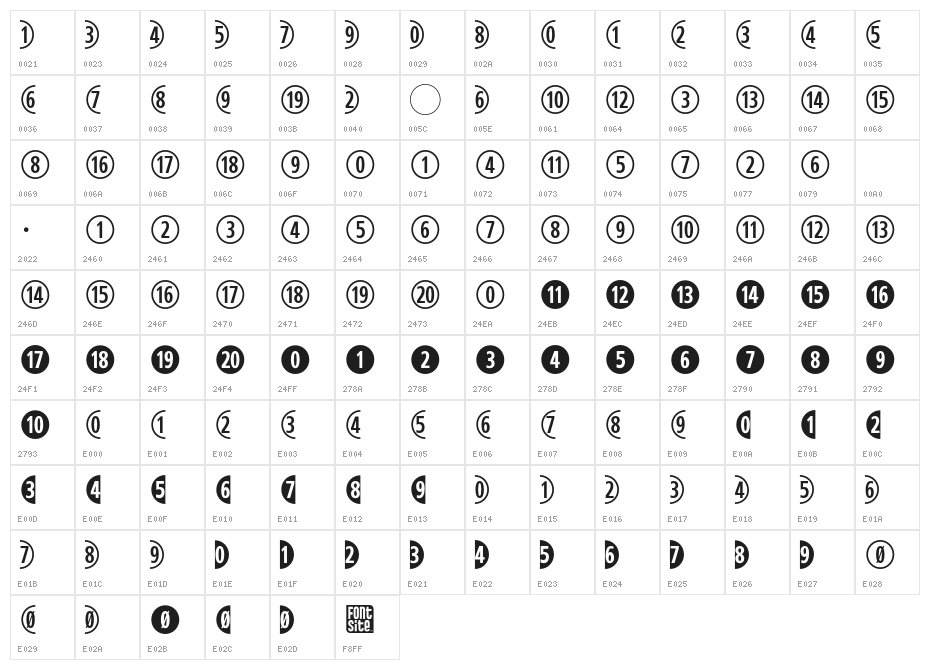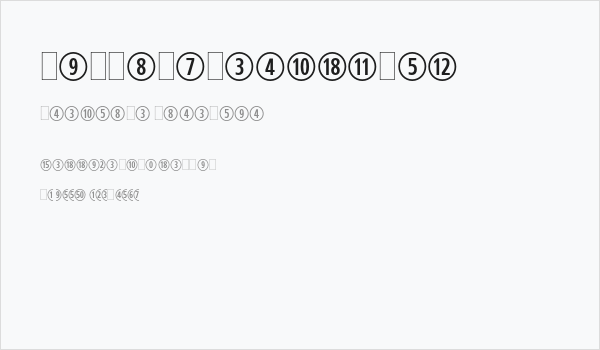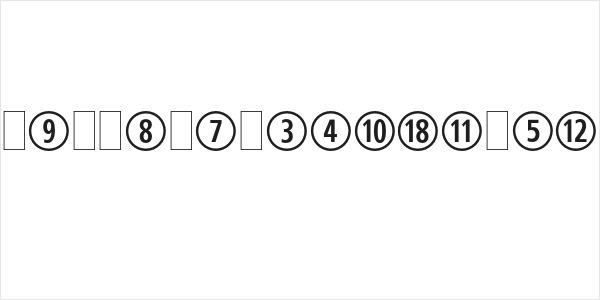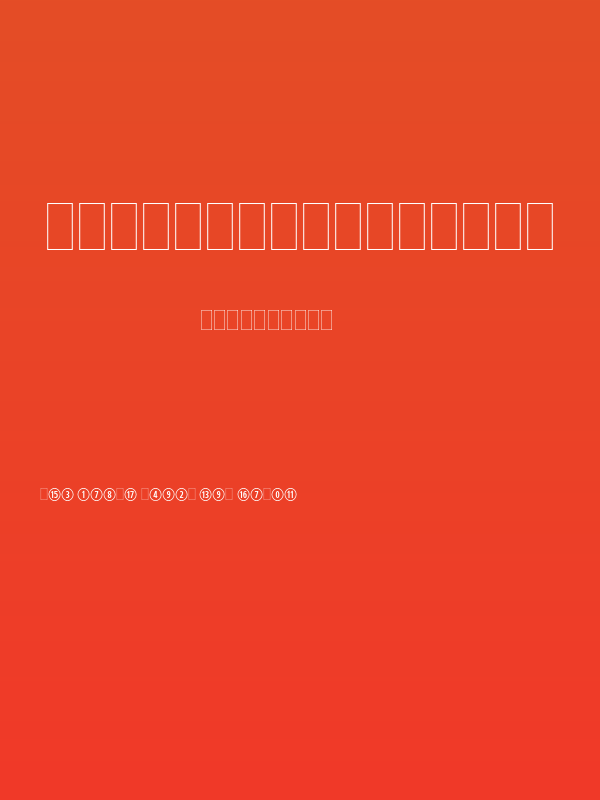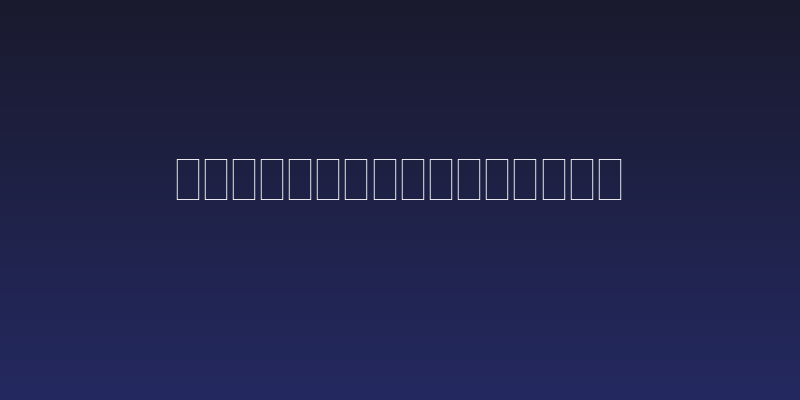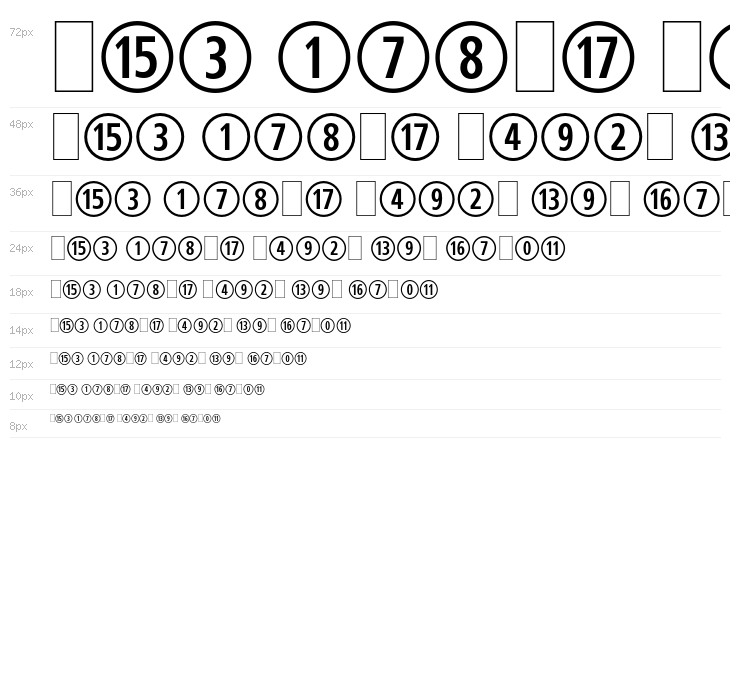
CombiNumeralsLtd Font
CombiNumeralsLtd Description
This font features a unique design where each numeral is enclosed within a geometric shape, such as circles or rectangles. The numbers are bold and prominent, making them stand out against the shapes. The style is playful and modern, with a focus on clarity and visual impact. The use of shapes adds a decorative element, making it suitable for creative and eye-catching designs. The font is versatile, offering a distinct look that can be used to draw attention in various contexts.